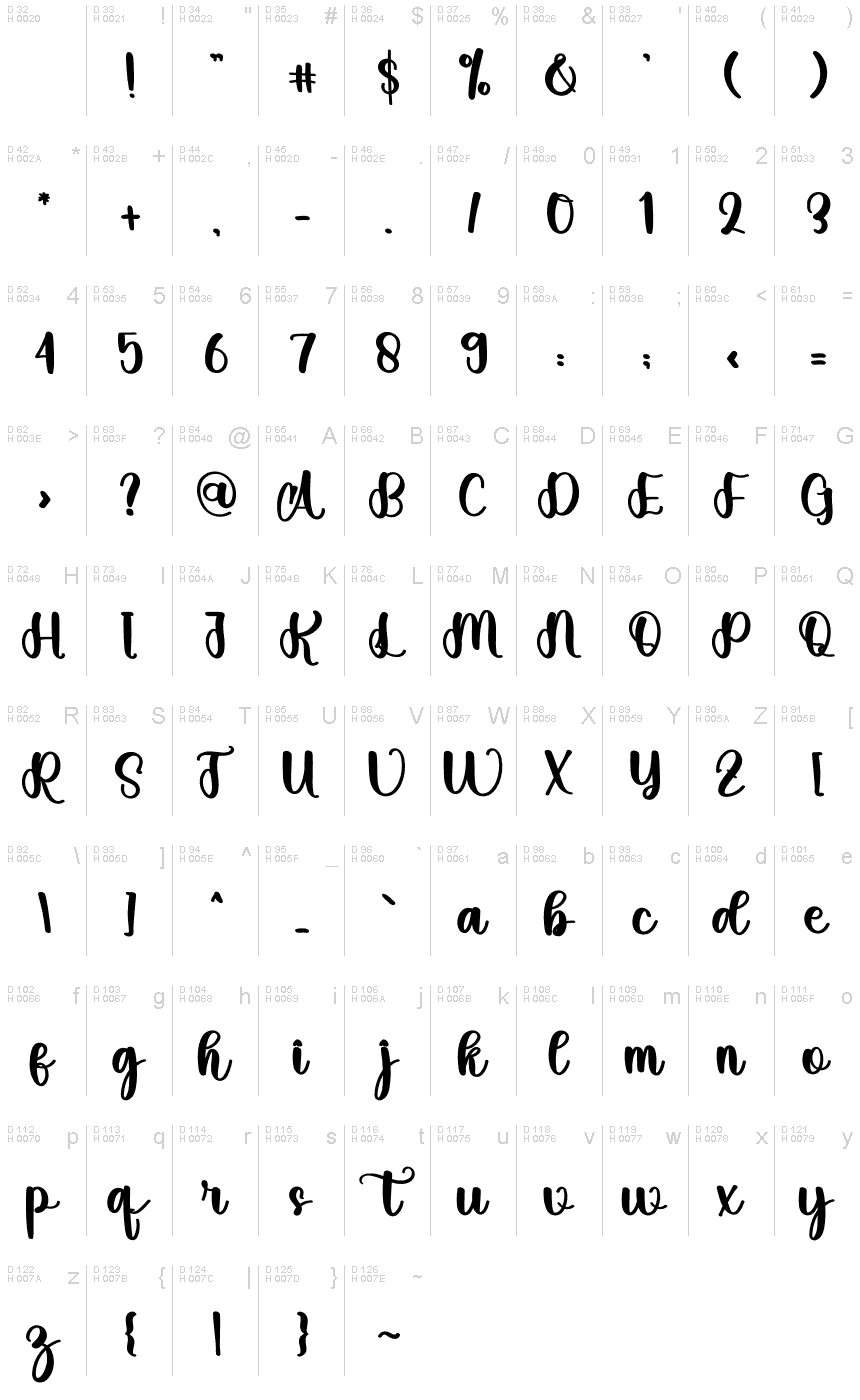
Bridge
Bridge is a captivating handwritten font, meticulously designed by Inermedia Studio. With its unique style and artistic flair, this font is perfect for a wide range of projects. Its playful yet elegant appearance makes it ideal for children's books and invitations, adding a touch of whimsy to any design. The semi-bold font adds emphasis to headlines and titles, making it suitable for advertising campaigns and branding materials. Whether you're working on a logo, packaging design, or social media graphics, Bridge is the perfect choice to infuse your project with charm and creativity.